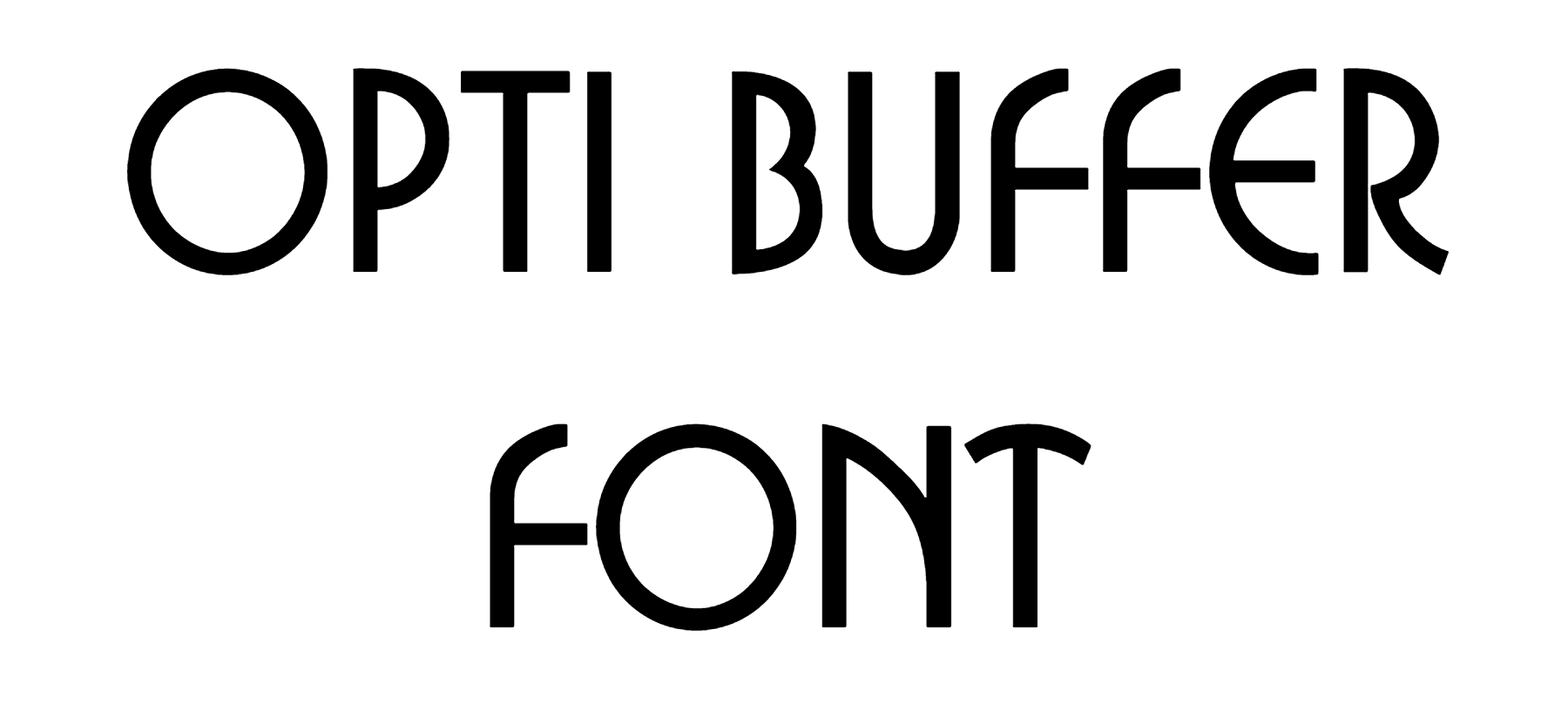
OPTI Buffer
OPTI Buffer is a fancy font designed by Castcraft Software, Inc (1993). Bold and full of character, it's built to stand out rather than blend in. The free download includes two styles, and you can try every one of them with your own text in the preview above.
- Designer: Castcraft Software, Inc
- Year: 1993 (from the copyright line in the font)
- Font styles: 2 (Regular and Bold)
- Glyphs: 212 in the Regular style
What You Can Type With OPTI Buffer
OPTI Buffer covers the full alphabet in upper and lowercase, plus all ten numbers, so you can set names, dates and prices without switching fonts. Everyday marks like &, !, ? and @ are there too. Thanks to its accented letters, it also works for Spanish, French, Portuguese and Italian, not just English.
Where OPTI Buffer Works Best
Think of OPTI Buffer for posters, logos and eye-catching headlines. Use it for one standout word or headline and let simpler fonts handle the rest. Because the family has more than one style, you can mix them in a single design for headings, subheadings and highlights.
Who designed OPTI Buffer font?
Does OPTI Buffer support accented letters?
Yes. OPTI Buffer includes the accented letters needed for Spanish, French, Portuguese and Italian, so it works for more than just English.